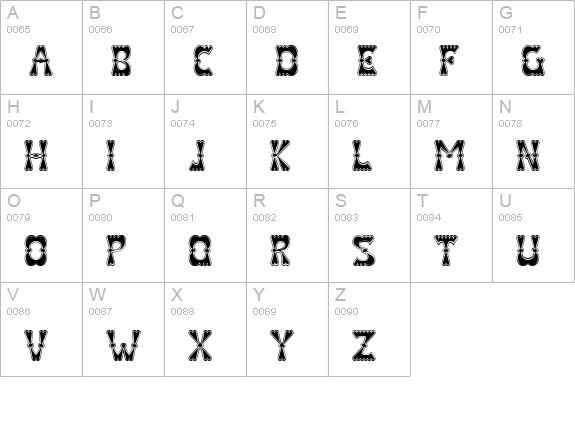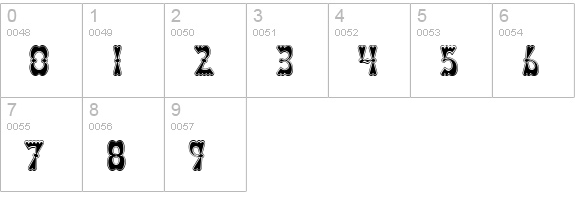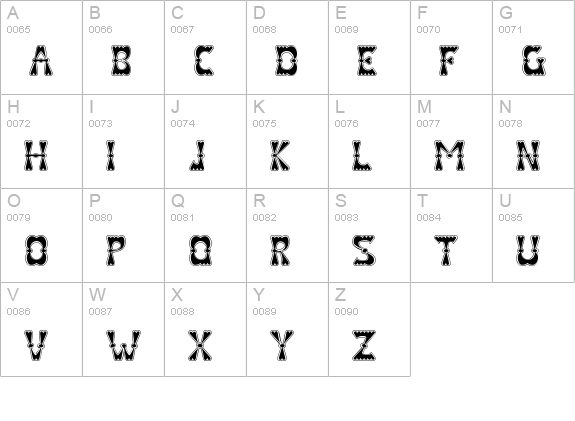
ValentinaContour Font Details
ValentinaContour font is a stunning display typeface that effortlessly combines elegance with a touch of whimsy. Its unique contours and intricate details make it perfect for adding a sophisticated and artistic touch to any design project. This font features graceful curves and delicate lines, giving each letter a distinct and captivating appearance. The sweeping strokes and precise details create a sense of movement, making ValentinaContour font a true standout in any composition. Whether you're designing an eye-catching logo, creating a beautiful invitation, or crafting a captivating headline, ValentinaContour font is sure to impress. Its versatility allows it to be used in a variety of contexts, from formal to whimsical, making it a go-to choice for designers looking to make a lasting impression. What makes ValentinaContour font even more enticing is that it is free to download at FontsMarket.com. This means that you can enjoy its beauty and functionality without any cost or limitations. With just a few clicks, you can have this exquisite font at your fingertips, ready to elevate your designs to new heights. Don't miss out on the opportunity to enhance your creative projects with the elegance and charm of ValentinaContour font. Download it for free at FontsMarket.com and let this extraordinary typeface inspire your next masterpiece.